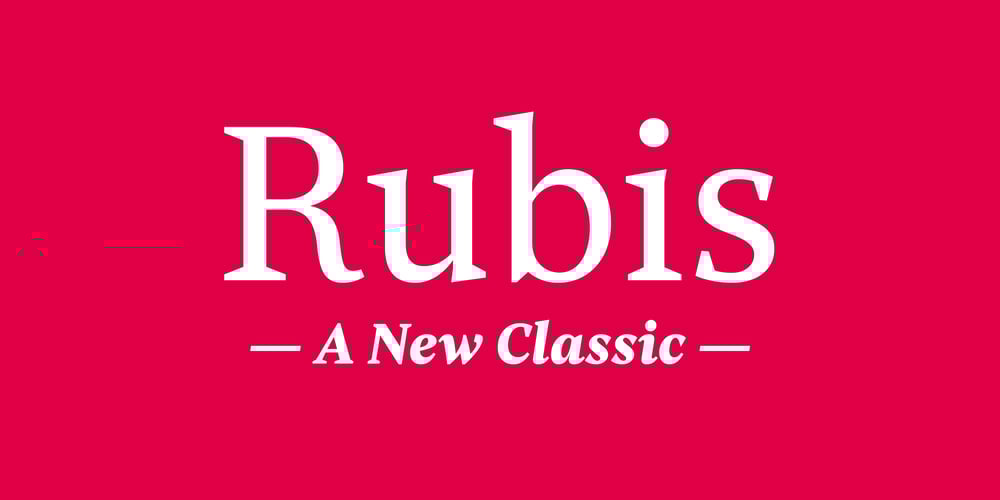
Rubis
Rubis font
Rubis Font Family was designed by Nico Inosanto and published by Nootype. Rubis contains 10 styles and family package options. Rubis is a contemporary serif typeface with a sharp aspect designed for long running text. It’s a family with a serious aspect but it keeps a certain charm. The idea behind Rubis was to create a typeface with flawless curves, every letter and symbol has been designed in this idea, it can be seen in the terminals which finish the letter with an extreme fluidity. It’s a family which mixes classical influence such as the calligraphic terminaison and the sharpness of a modern typeface. The Regular and Medium are optimized for long text while the Light and Black can be useful for Title. The range of style give a good flexibility to this family. It’s an excellent family for editorial use. Rubis consists in a 10 styles family, from Light to Black with their corresponding italics. Each font includes OpenType Features such as Small Caps, Proportional Figure, Tabular Figures, Numerators, Superscript, Denominators, Scientific Inferiors, Subscript, Ordinals, Fractions and ligatures.Rubis family supports Latin and Cyrillic, all these languages are covered:Latin language support:Afar, Afrikaans, Albanian, Asturian, Azeri, Basque, Bosnian, Breton, Bulgarian, Catalan, Cornish, Corsican, Croatian, Czech, Danish, Dutch, English, Esperanto, Estonian, Faroese, Filipino, Finnish, Flemish, French, Frisian, Friulian, Gaelic, Galician, German, Greenlandic, Hungarian, Icelandic, Indonesian, Irish, Italian, Kurdish, Latin, Latvian, Lithuanian, Luxembourgish, Malagasy, Malay, Maltese, Maori, Moldavian, Norwegian, Occitan, Polish, Portuguese, Provençal, Romanian, Romansch, Saami, Samoan, Scots, Scottish, Serbian, Slovak, Slovenian, Spanish, Swahili, Swedish, Tagalog, Turkish, Walloon, Welsh, WolofCyrillic language support:Adyghe, Avar, Belarusian, Bulgarian, Buryat, Chechen, Erzya, Ingush, Kabardian, Kalmyk, Karachay-Balkar, Karakalpak, Kazakh, Komi, Kyrgyz, Lak, Macedonian, Moldovan, Mongol, Permyak, Russian, Rusyn, Serbian, Tatar, Tofa, Tuvan, Ukrainian, Uzbek.